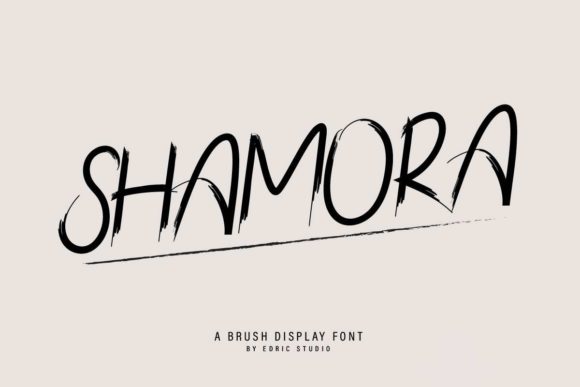
Journey into the realm of exquisite typography with Shamora Font, a script font family that exudes both charm and elegance. This handcrafted masterpiece, conjured by the skilled hands of EdricStudio, is not just a font; it's an expression of artistry that will transform your creative endeavors into visual wonders.
Lose yourself in the beauty of Shamora Font's captivating letterforms, meticulously designed to evoke emotions and make a lasting impression. With its graceful curves and elegant flourishes, this font family invites you to create designs that speak from the heart. Whether you're a seasoned designer or just starting your typographic journey, Shamora Font will captivate your imagination and unleash your creativity.
Step into a world where your words dance with newfound grace. Shamora Font's carefully crafted characters bring a touch of sophistication to headlines, logos, branding, and any design element craving a dash of elegance. As your designs blossom with Shamora Font's allure, you'll discover a symphony of visual harmony and allure.
Feel the power of Shamora Font as it elevates your designs to remarkable heights. With its versatility, this font family seamlessly adapts to a myriad of creative projects, effortlessly enhancing posters, flyers, social media graphics, and website designs. Watch as your creations transform into captivating works of art, leaving an indelible mark on the minds of your audience.
Unleash your imagination and embark on a creative expedition with Shamora Font. Dive into a world where your designs captivate and inspire, leaving a trail of visual enchantment wherever they go. As you embrace the boundless possibilities of this font family, you'll discover a new level of typographic mastery that will redefine your creative journey.